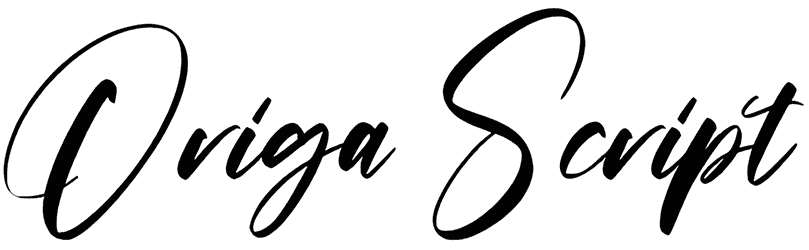
Origa Script Font
While standing out in this notorious market is getting hard every day, you can design prominent graphic content by using a handwritten font such as Origa Script in your business cards, product packaging, web pages, social media posts, and logos. This script font comes with a cursive style that dances along the baseline, so it carries a sense of softness, delicacy, and professionalism.